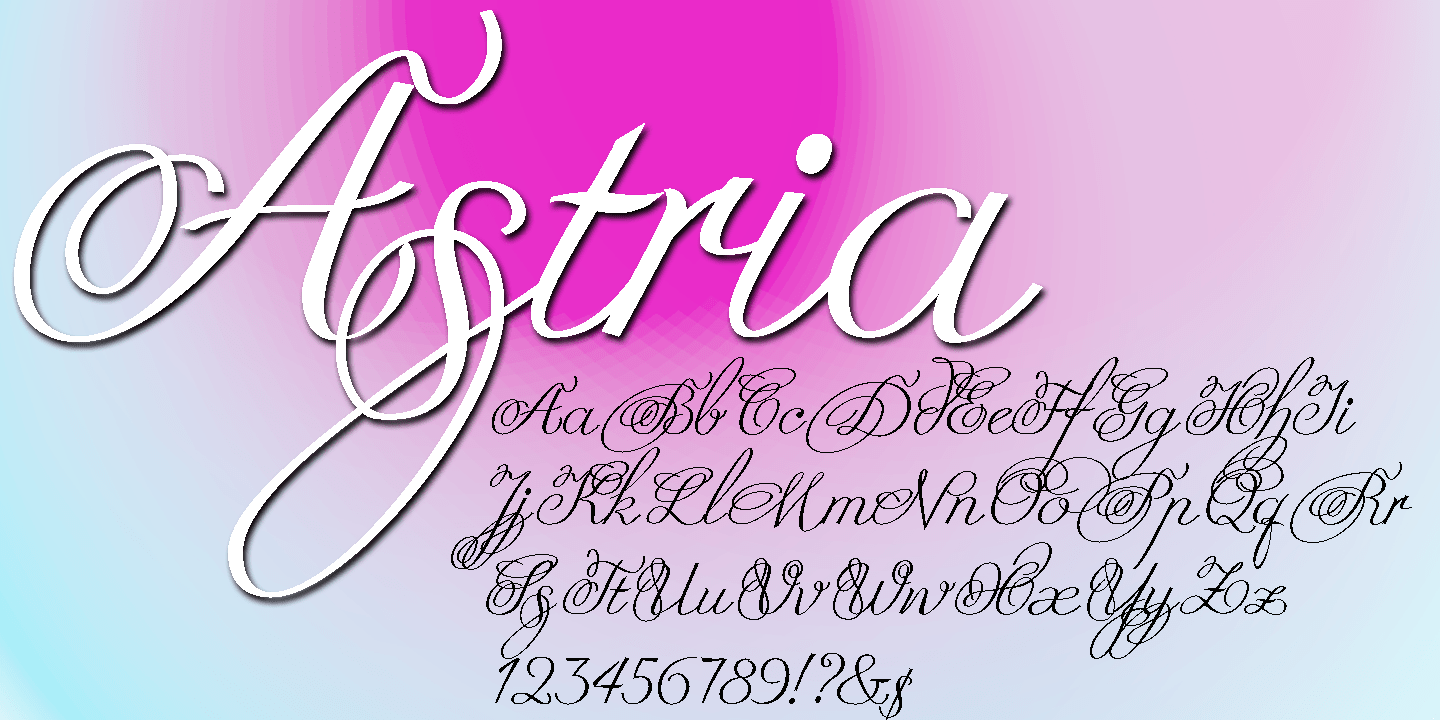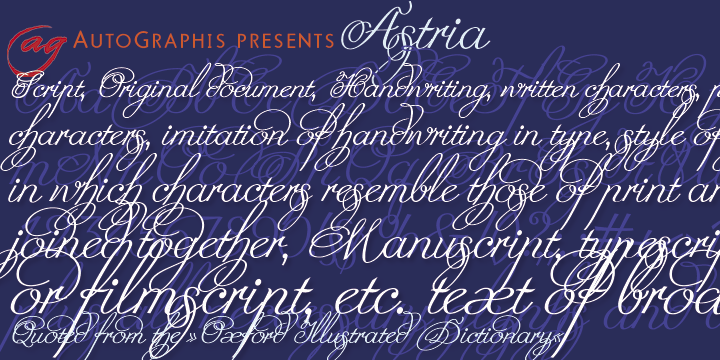
Astria
Font Family by Autographis
Astria is a swinging script, that works best in short headlines or as a decorative Element.
I like it when the lines overlap, with letters flowing into each other.